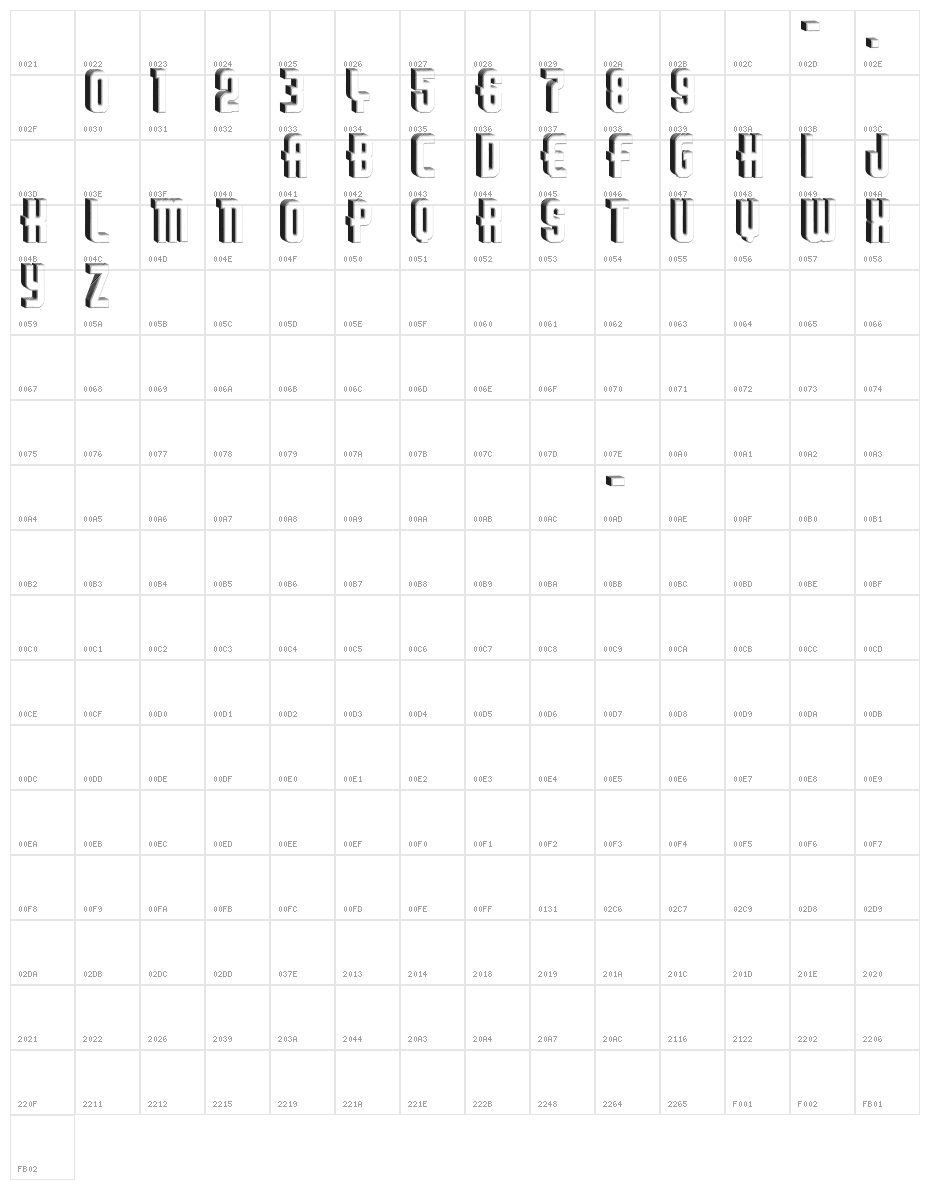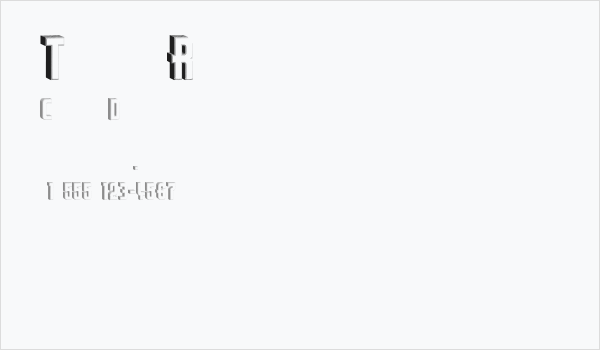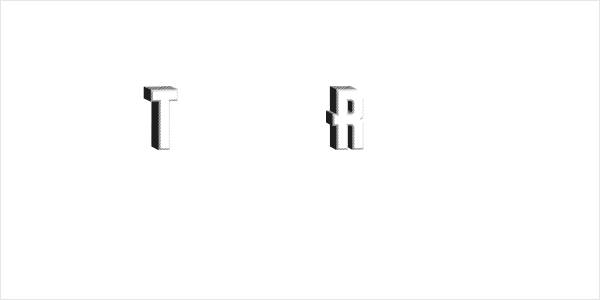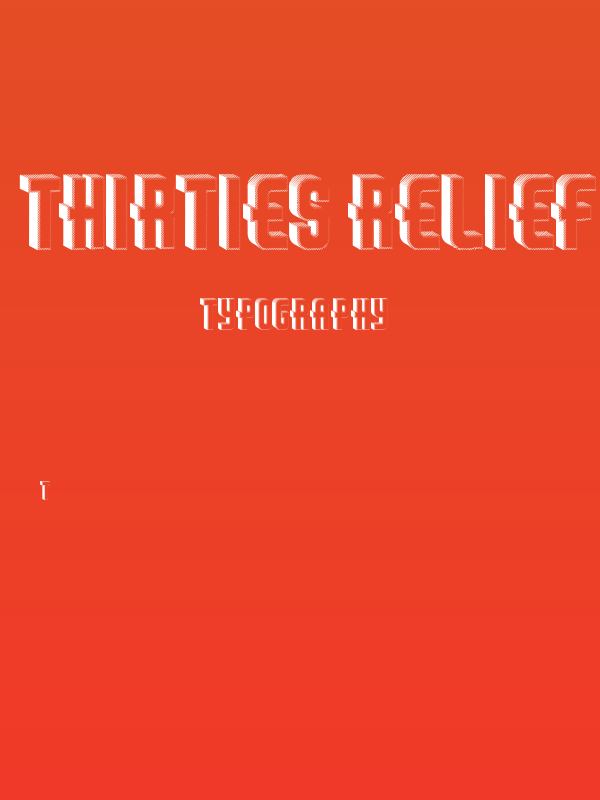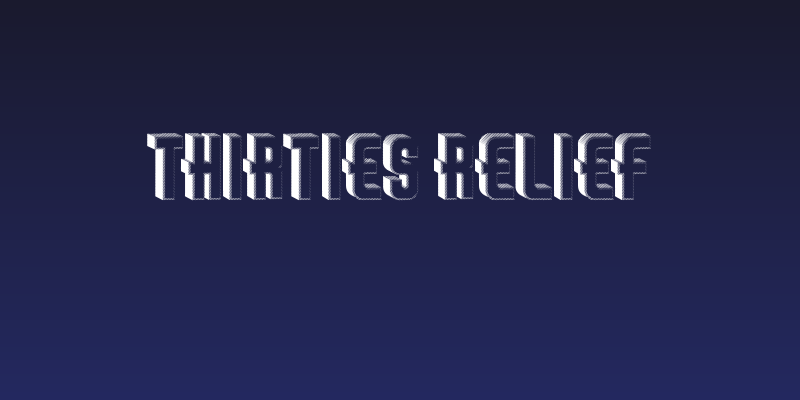
Thirties Relief Font
Thirties Relief Description
This font features a bold, three-dimensional style with a distinct shadow effect that gives it a strong, impactful presence. The characters are uppercase and numerals, each with a solid, block-like appearance that suggests a sense of depth and weight. The design incorporates a striped pattern within the shadow, adding a textured, dynamic look. This font is reminiscent of vintage signage and art deco styles, making it ideal for projects that require a retro or nostalgic feel. The boldness and geometric structure of the letters make it highly legible and suitable for attention-grabbing headlines or display purposes.
Overall StyleVintage
Proposed ProjectsIdeal for retro-themed posters, vintage branding, signage, and decorative headlines.